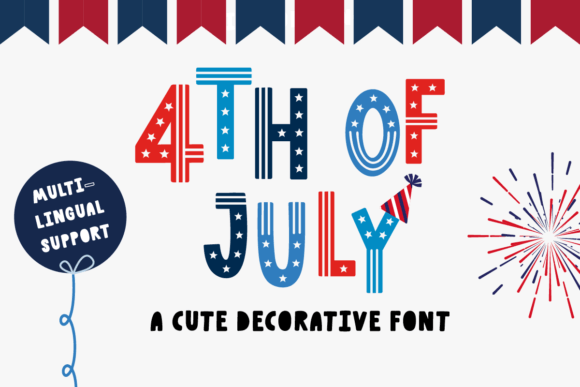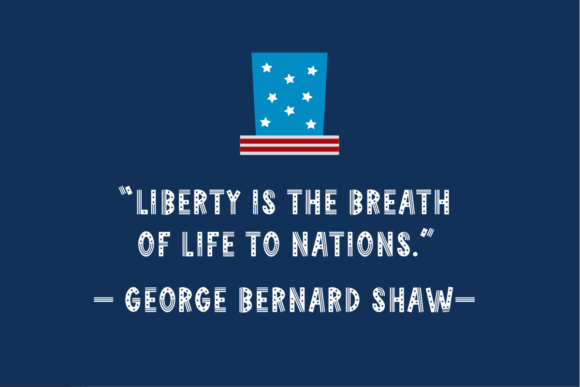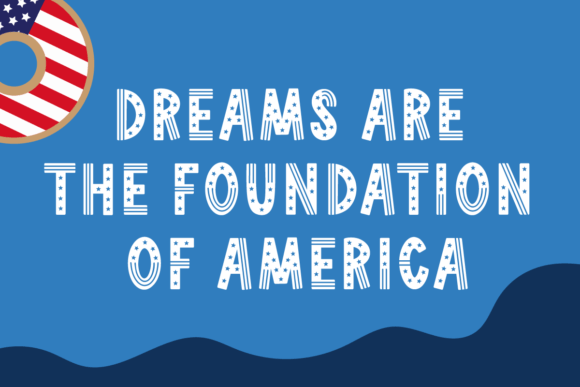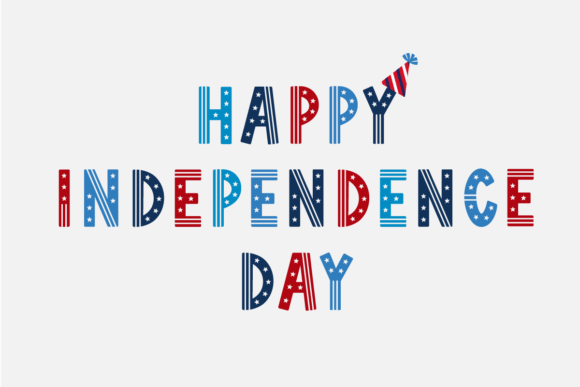
4th of July Font
About the 4th of July Font
Let us introduce you to 4th of July Font, where timeless design meets modern craftsmanship. 4TH of July is a cute decorative font that is inspired by the United States flag. Perfect for projects that celebrate American history or events such as Independence Day, Veterans Day, or Memorial Day. You can use this font for creating shirts, designs, invitation cards, mugs, stickers, playful quotes, creating posters, logos, greeting cards, packaging, decorating the illustration and so much more!
Its playful, slightly quirky style makes it ideal for headlines, short text blocks on posters, and branding elements for companies with a patriotic or Americana theme. It works well for packaging design on products targeting a younger demographic or those with a celebratory, festive feel. Avoid using it for body text or UI elements; the decorative nature compromises readability in extended use.
Consider pairing 4th of July Font with a clean sans-serif like Open Sans for a balanced contrast, or a more traditional serif like Playfair Display for a classic, yet still celebratory feel. A simple, geometric sans-serif would also complement its slightly whimsical character.
The font’s overall personality is best described as cheerful and celebratory, reflecting the spirit of its namesake holiday. It’s not appropriate for projects requiring a serious or sophisticated tone.
4th of July Font Usage Examples
4th of July Font Example